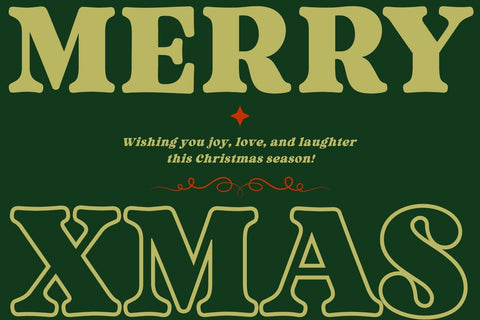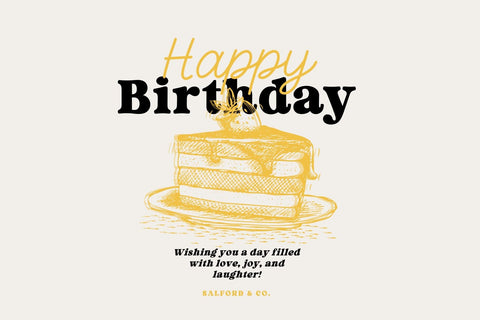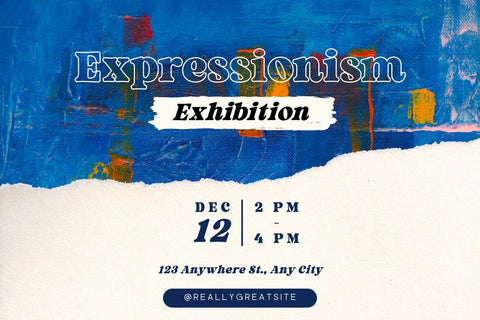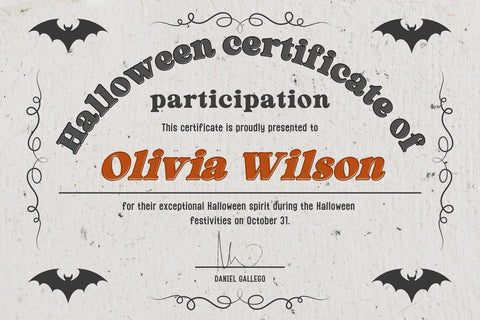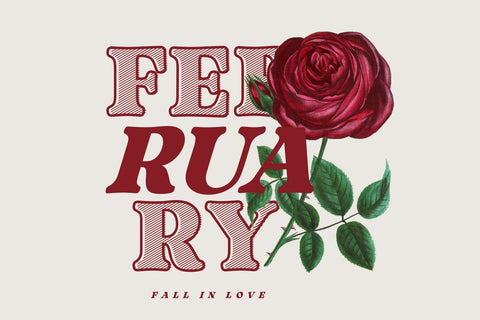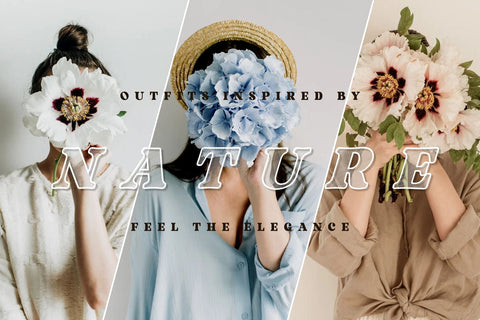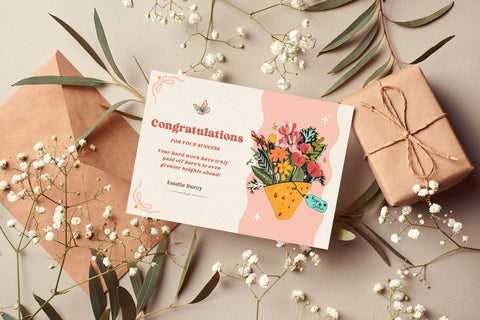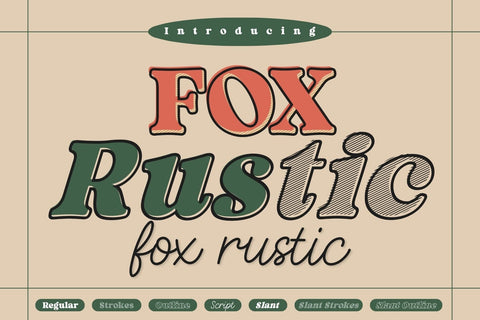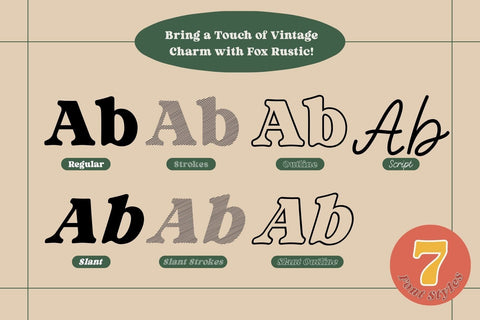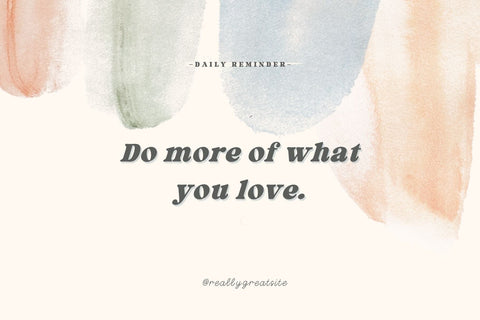
Fox Rustic: 7 Font Styles
Bring a touch of handcrafted charm to your designs with Fox Rustic, a bold vintage font family that combines classic elegance with playful hand-drawn textures. Perfect for projects that need a cozy, retro feel — from farmhouse signs and coffee packaging to logo designs, posters, and invitations.
✨ Fox Rustic comes in 7 unique styles to give you endless creative possibilities:
Regular
Strokes
Outline
Script
Slant
Slant Strokes
Slant Outline
Each style adds a warm, nostalgic vibe that pairs beautifully with rustic or vintage-themed designs. The script version complements the bold serif perfectly, making it ideal for creating stylish typography combinations.
Perfect for logos, packaging, invitations, labels, posters, branding, and more
Bring your vintage ideas to life with Fox Rustic — where classic charm meets handcrafted flair.